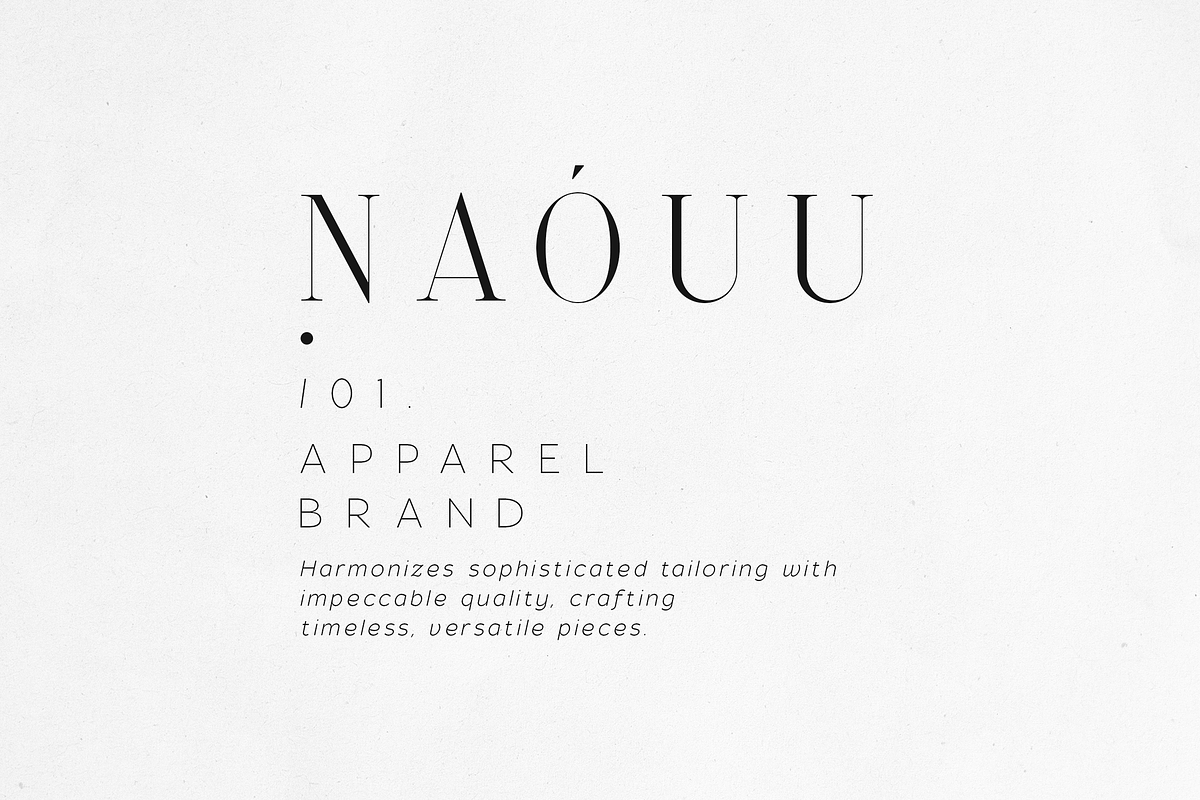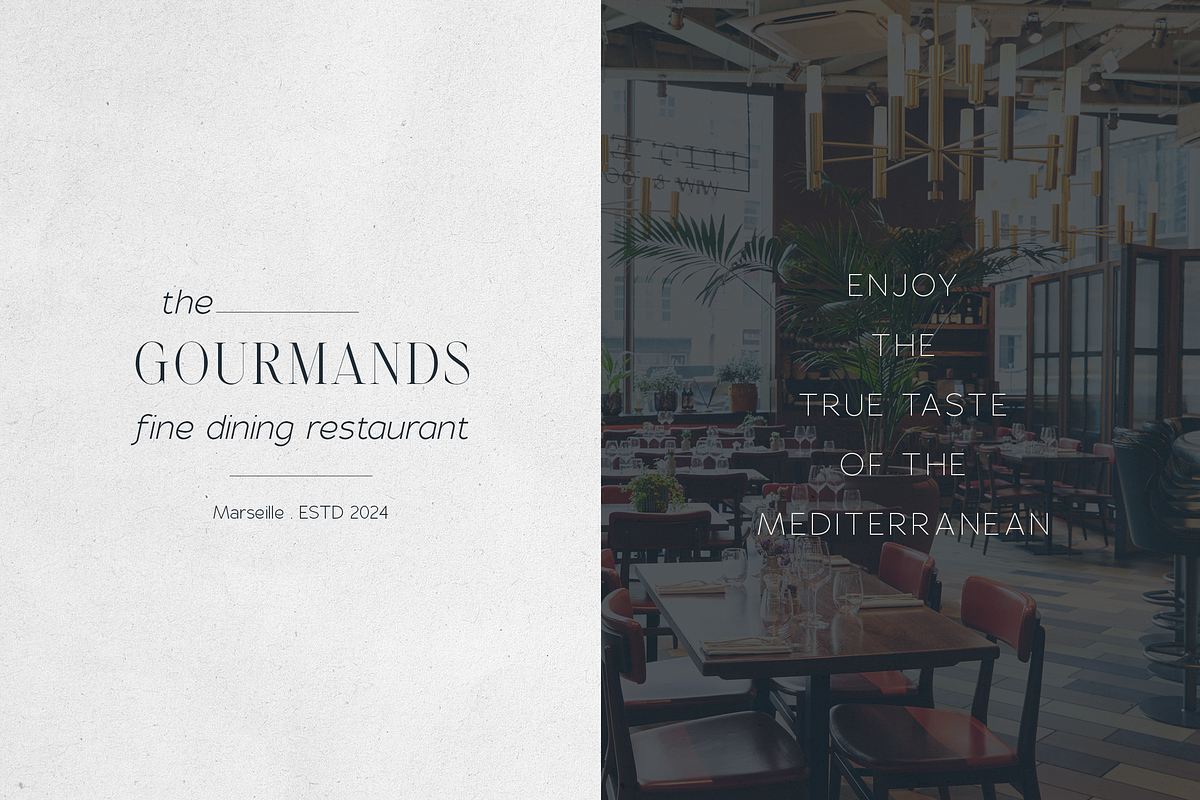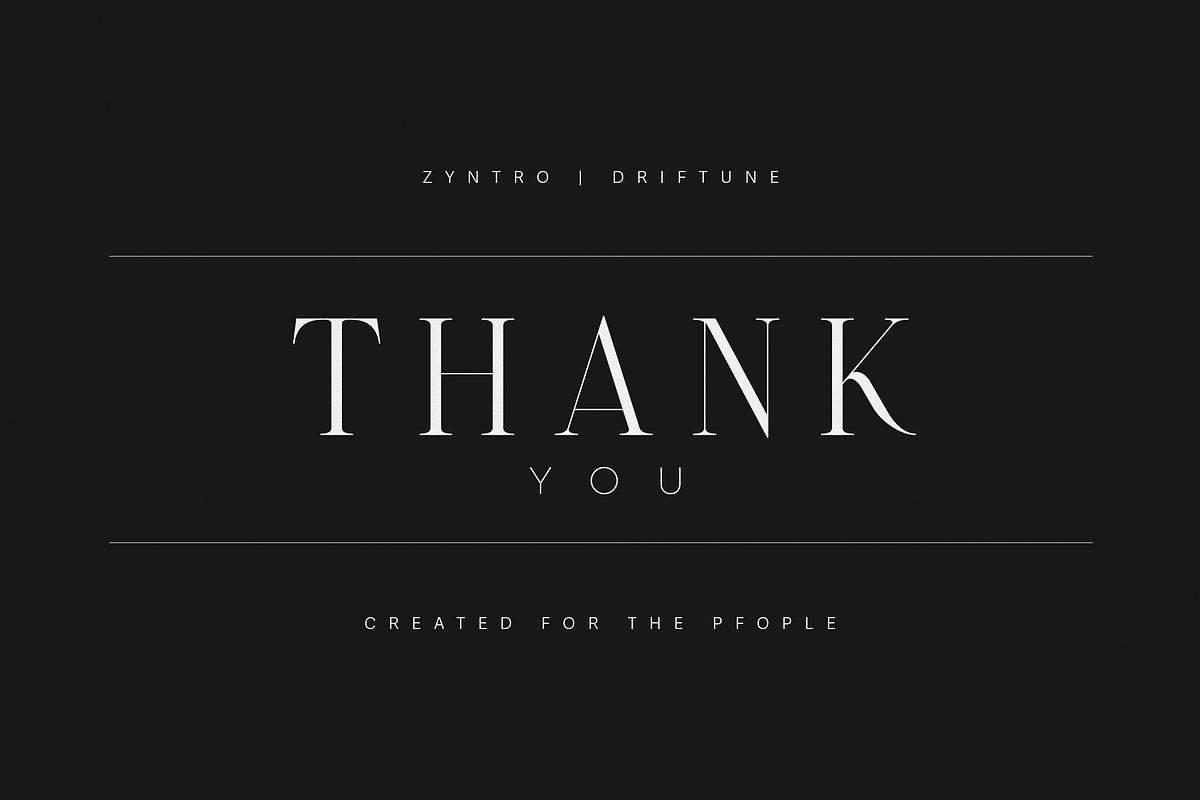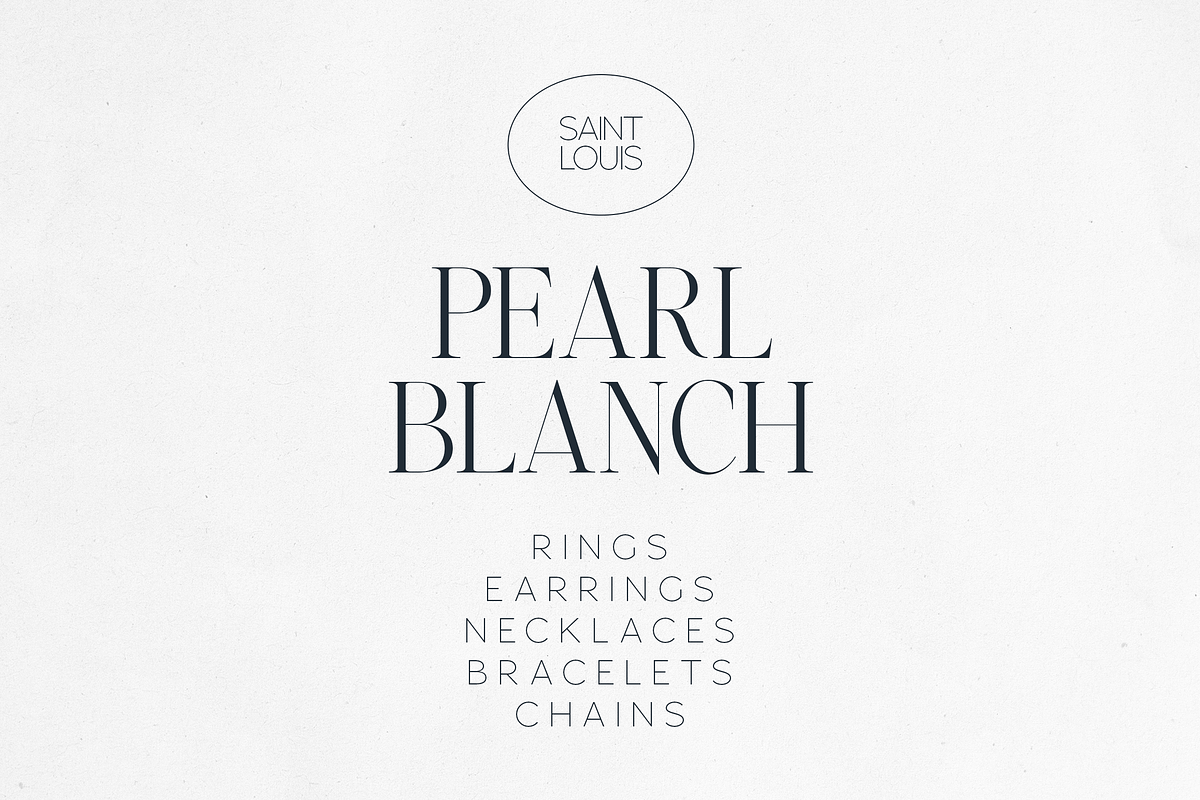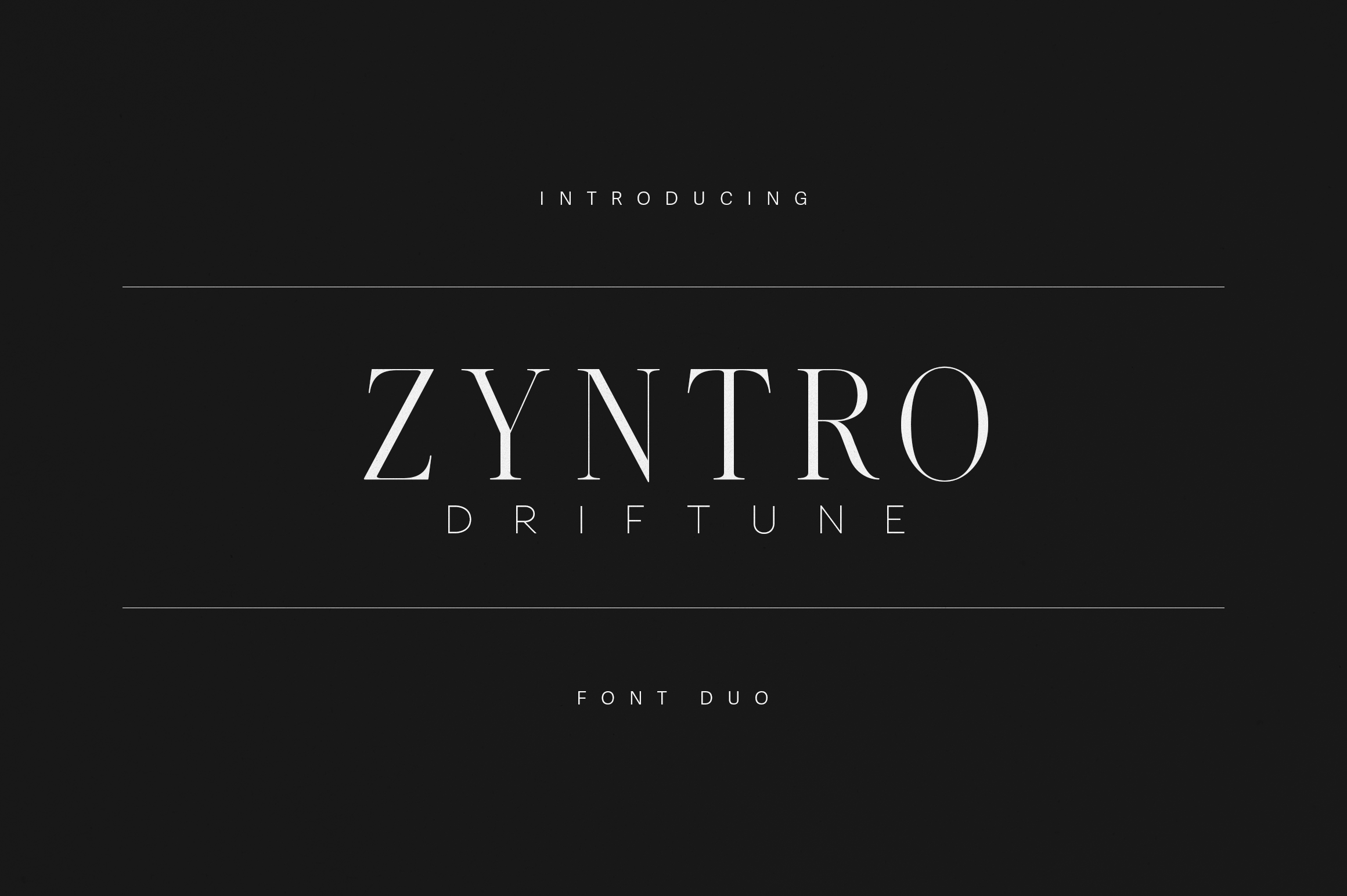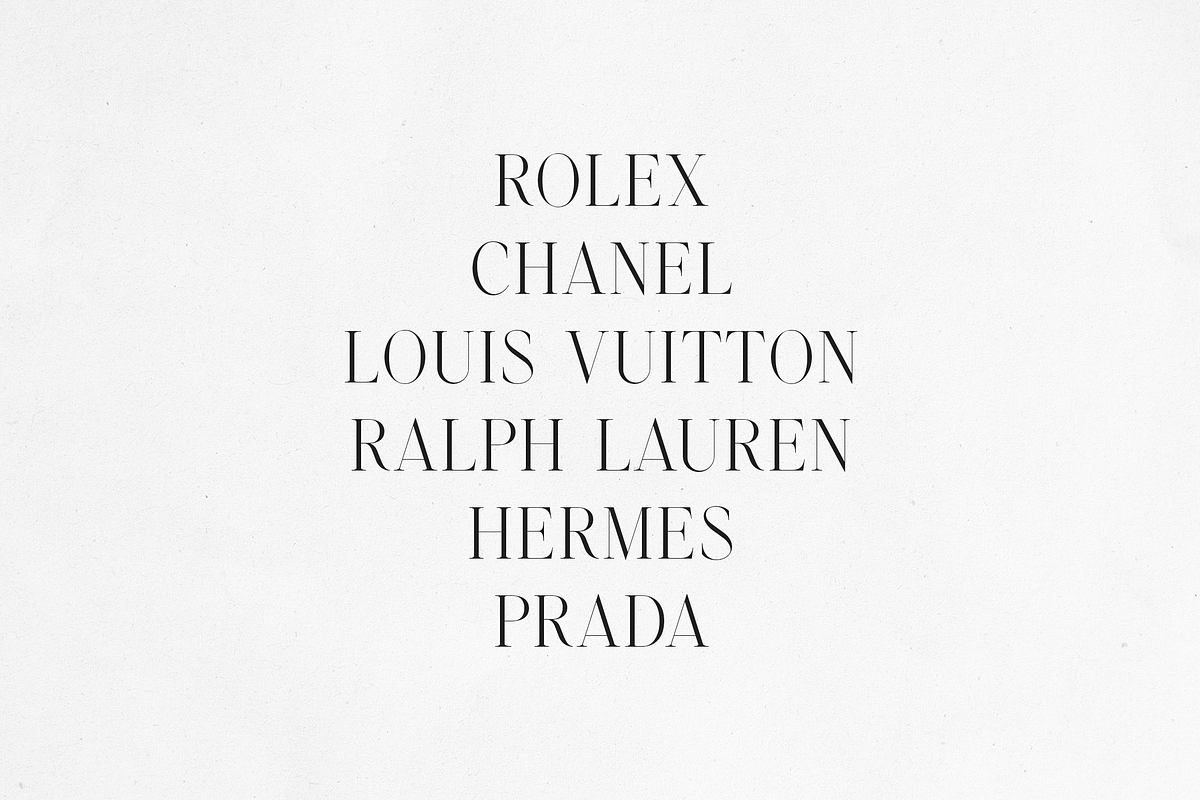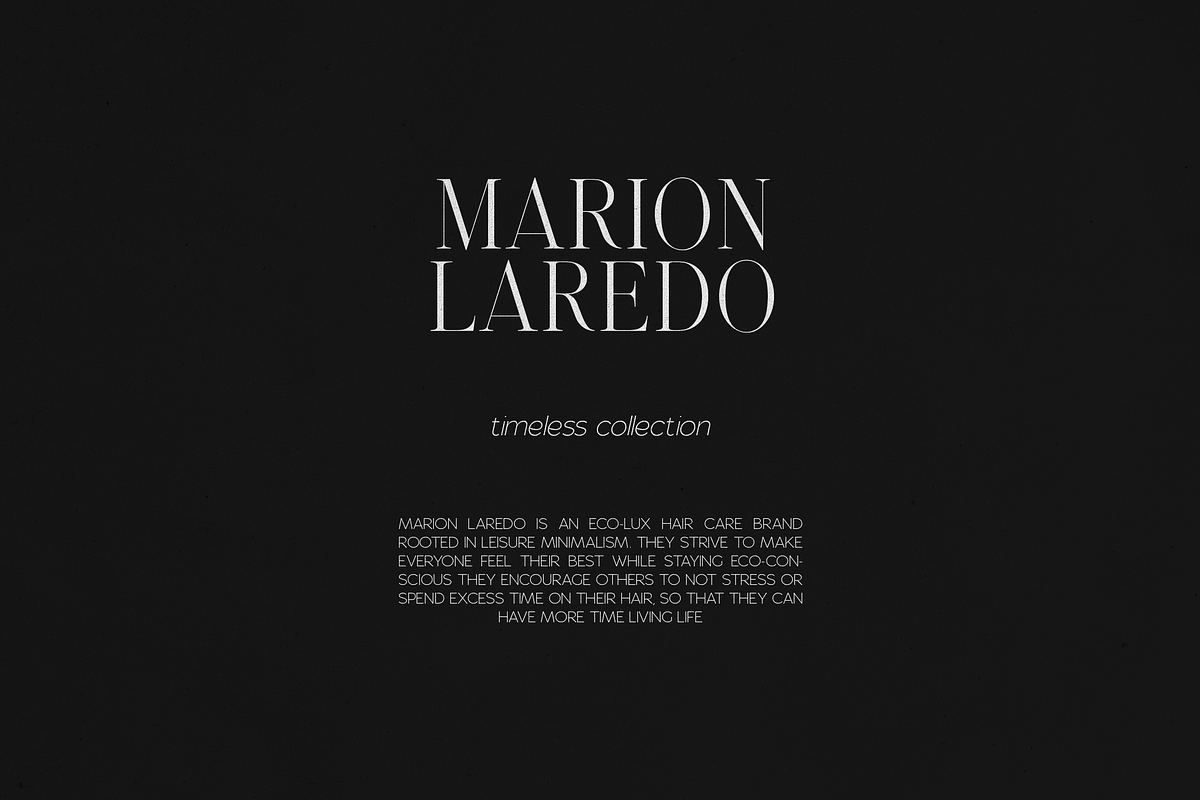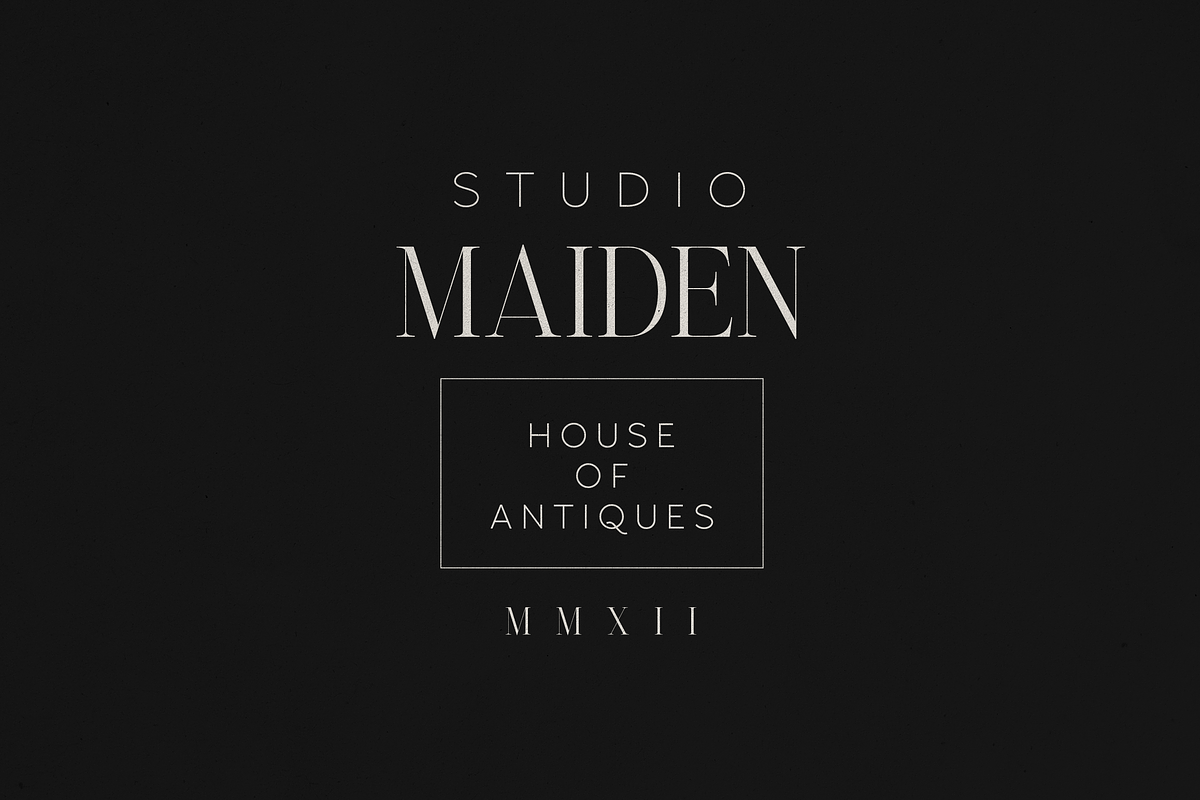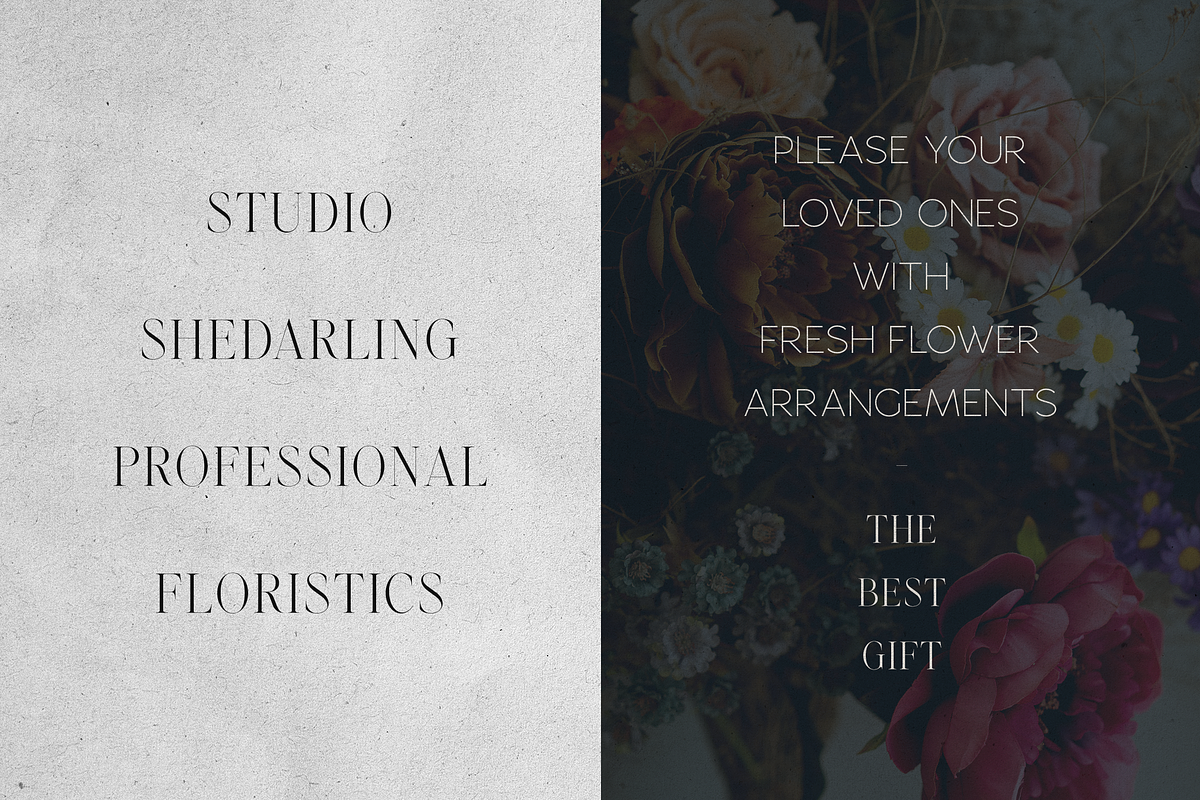
Zyntro & Driftune — Luxury Font Duo
Zyntro & Driftune — Modern Luxury Font Duo
Elevate your branding with Zyntro & Driftune, a refined font duo crafted for high-end design. This elegant serif and sleek sans-serif pairing delivers the perfect balance between timeless sophistication and modern minimalism — ideal for luxury branding, fashion labels, editorials, packaging, and upscale web design.
Zyntro’s high-contrast letterforms exude confidence and classic charm, while Driftune complements it with a delicate, clean aesthetic that enhances readability and style. Together, they create effortlessly elevated compositions that transform any project into a polished masterpiece.
- Luxury fashion branding
- Beauty & lifestyle packaging
- Editorial layouts and magazines
- Fine dining and boutique identities
- Minimalist logo design
Each font is meticulously designed for versatility and impact, supporting 87 languages, and ensuring seamless results across print and digital.
Bring luxury, balance, and personality to your next creative project — with Zyntro & Driftune Font Duo.